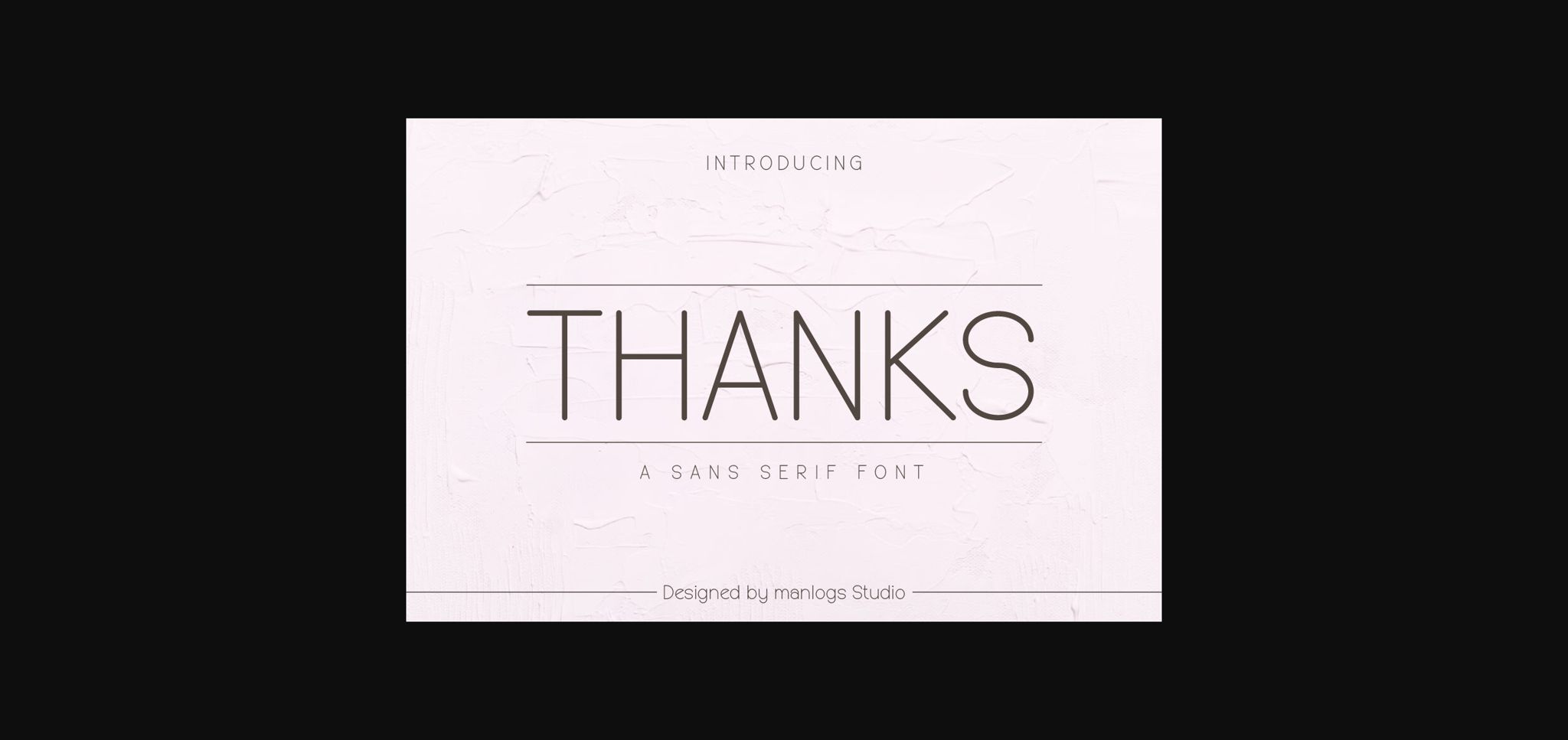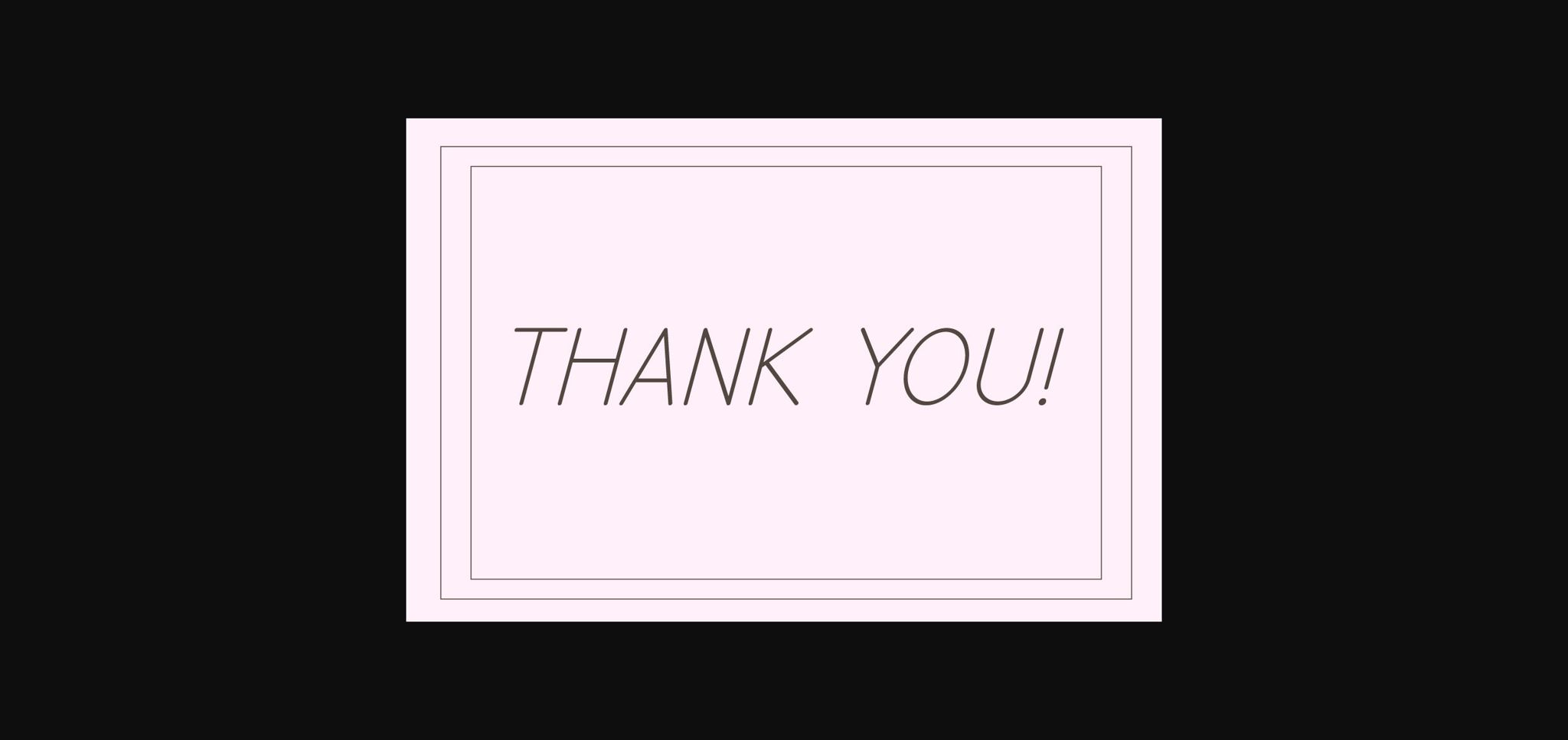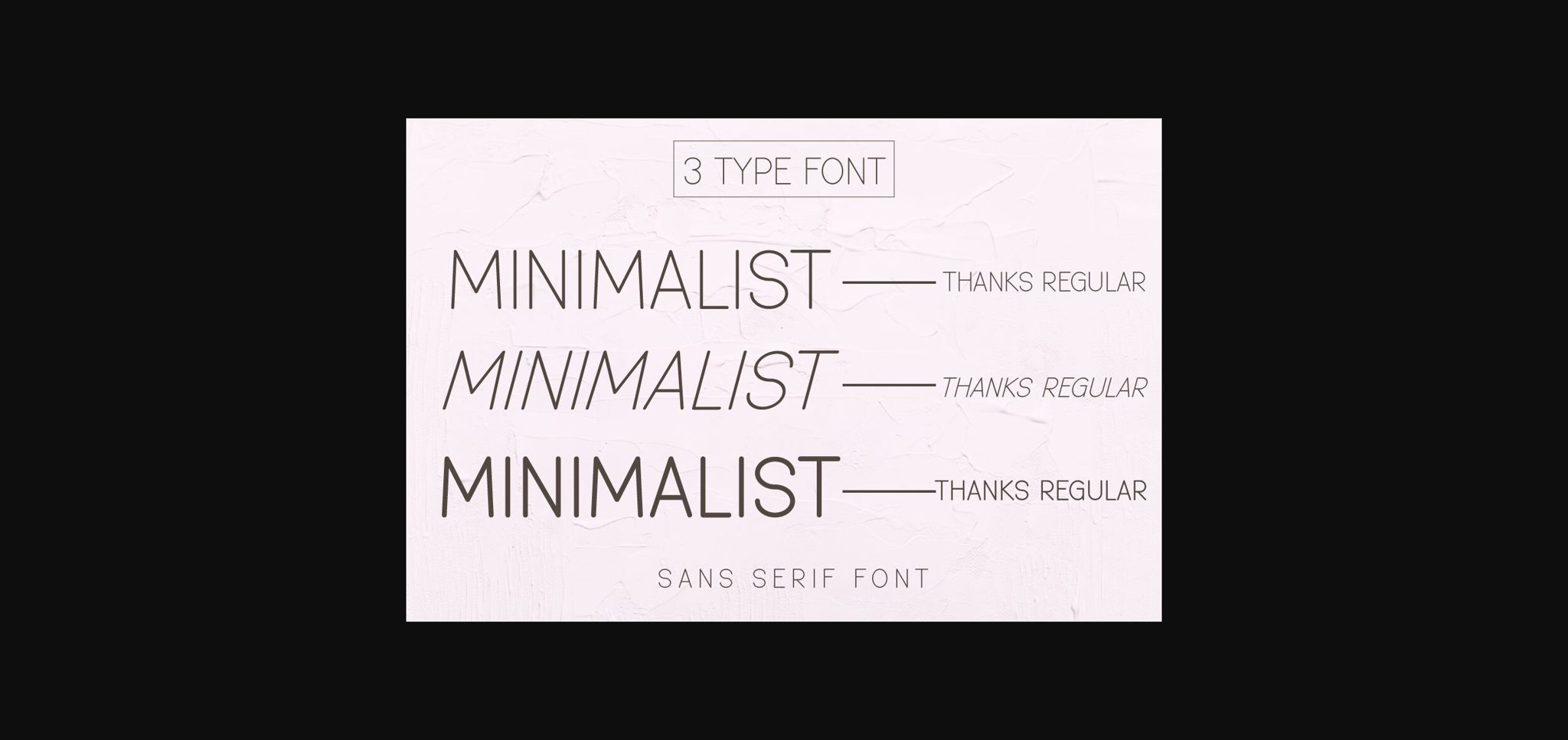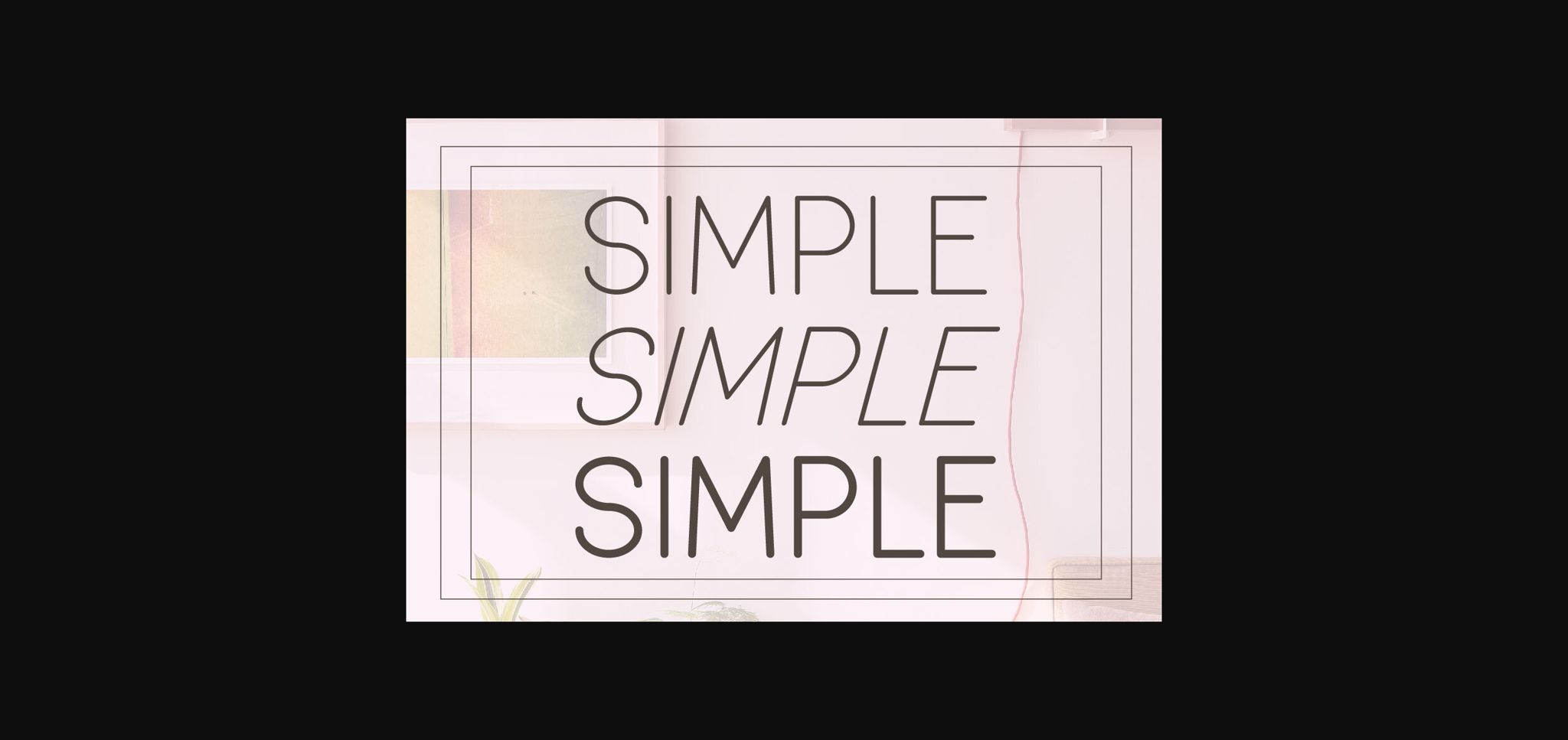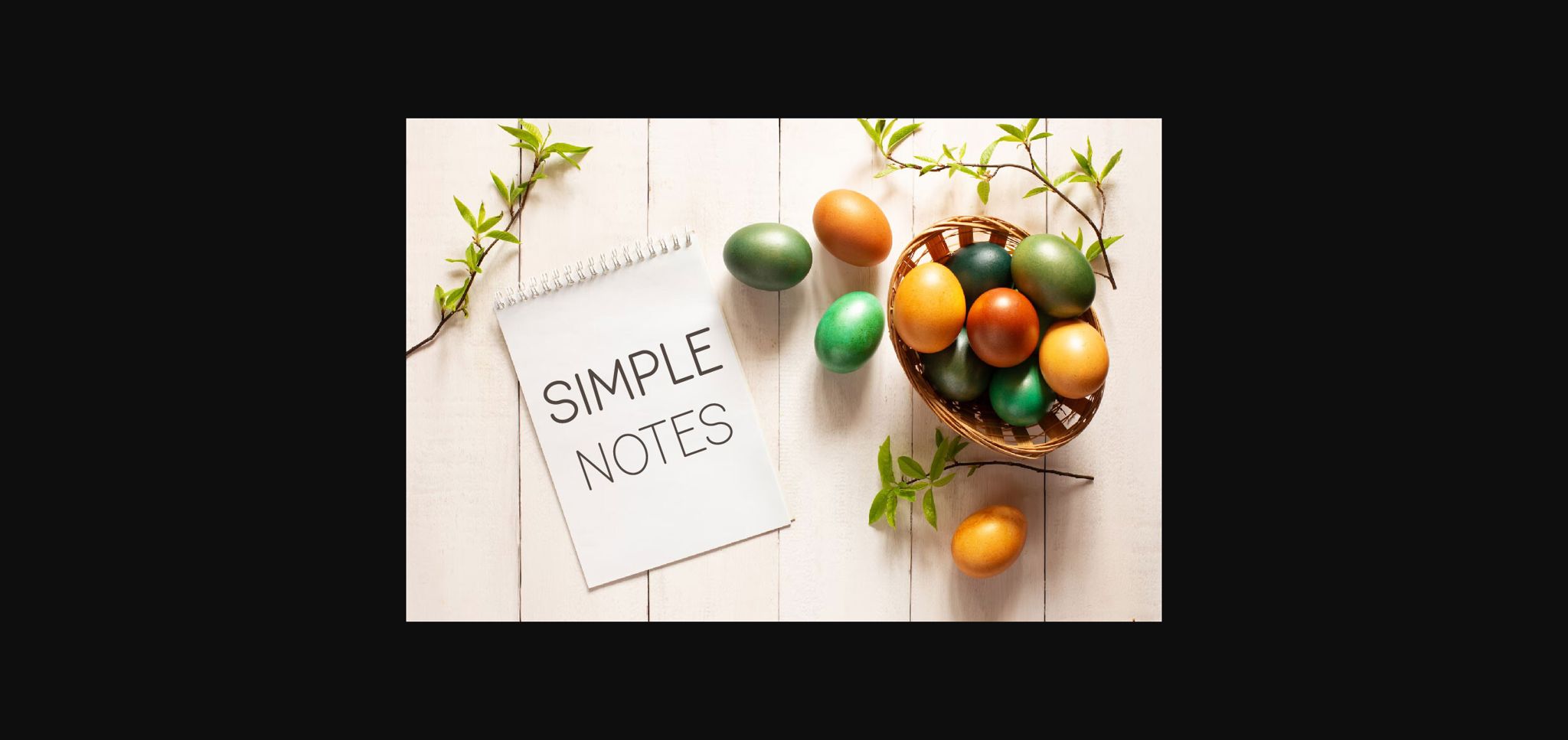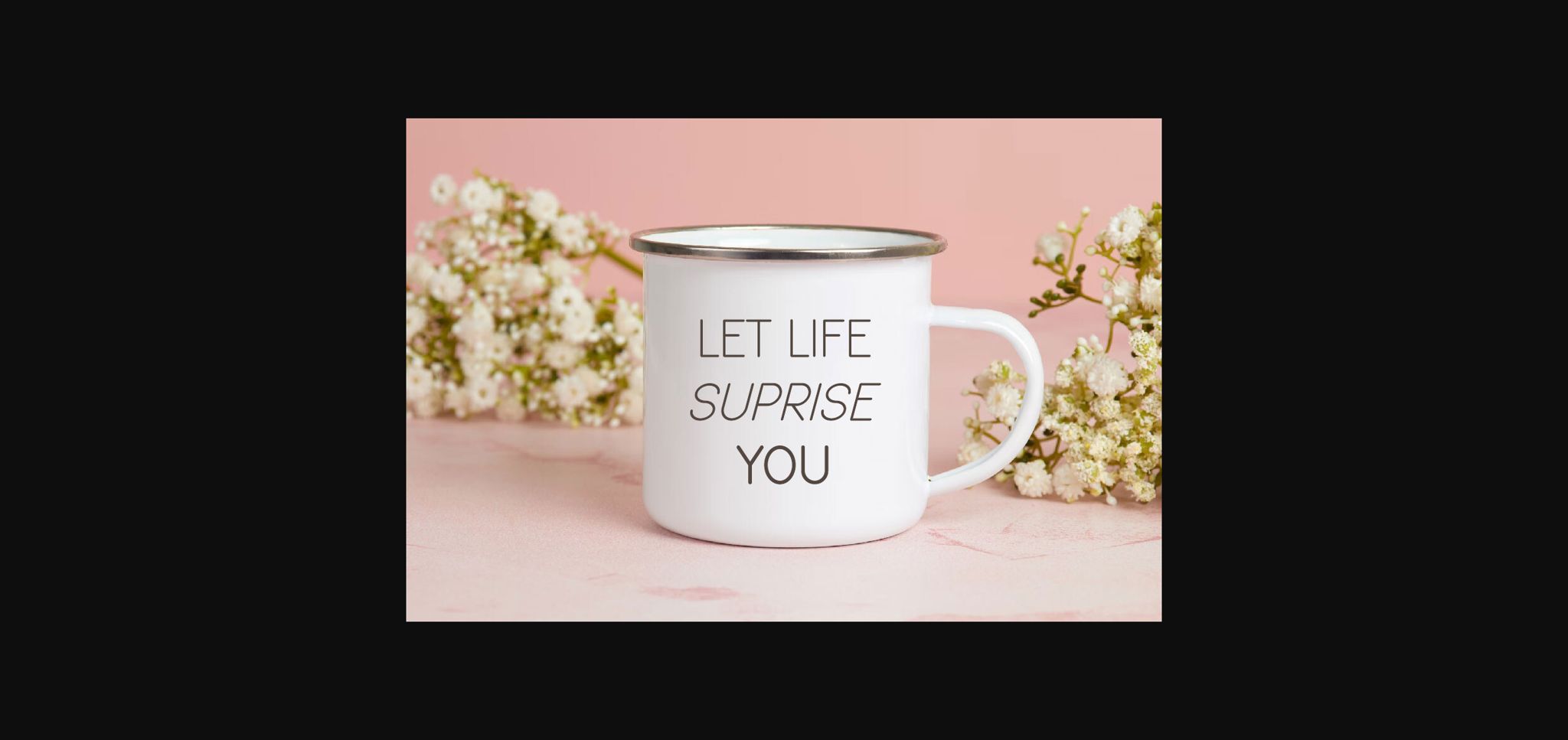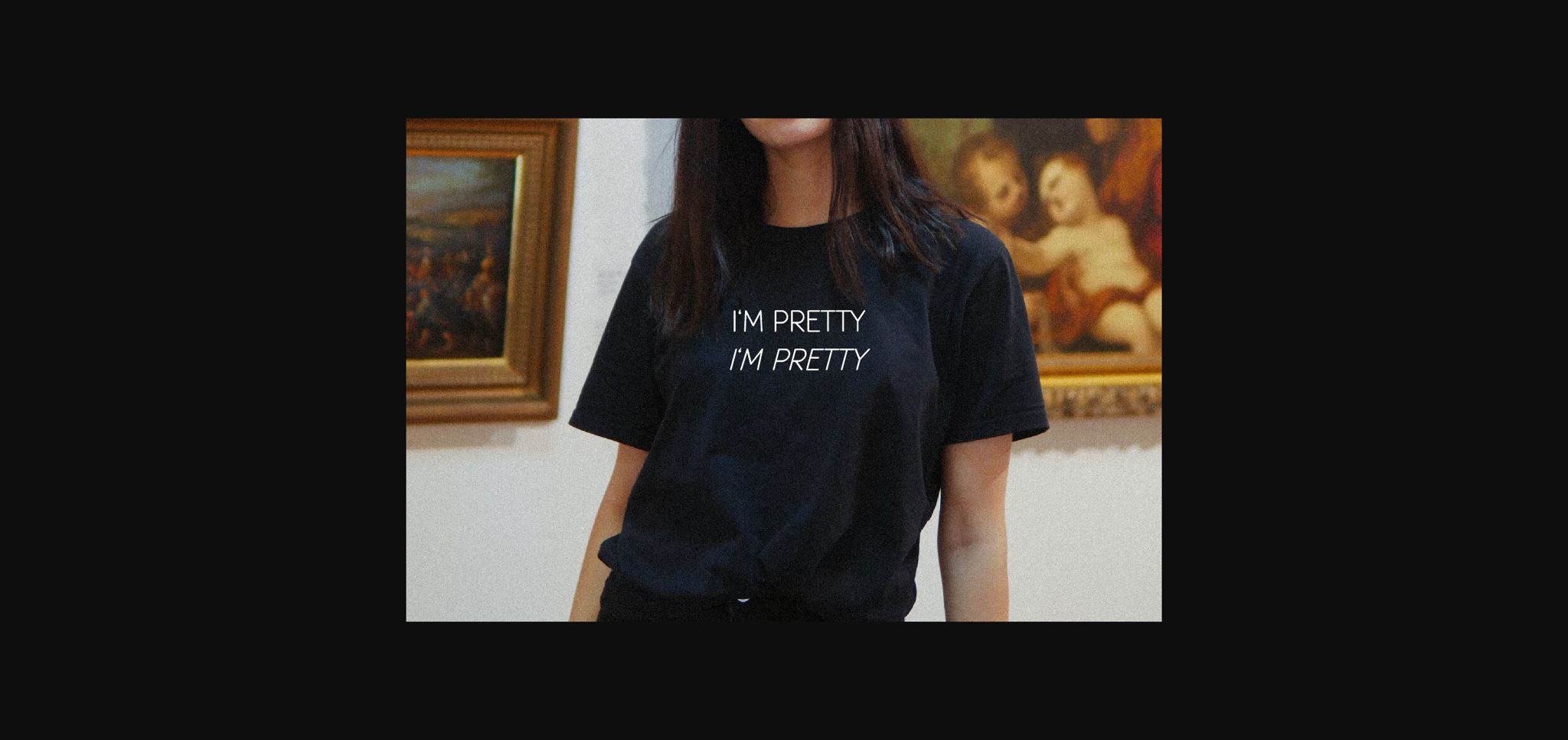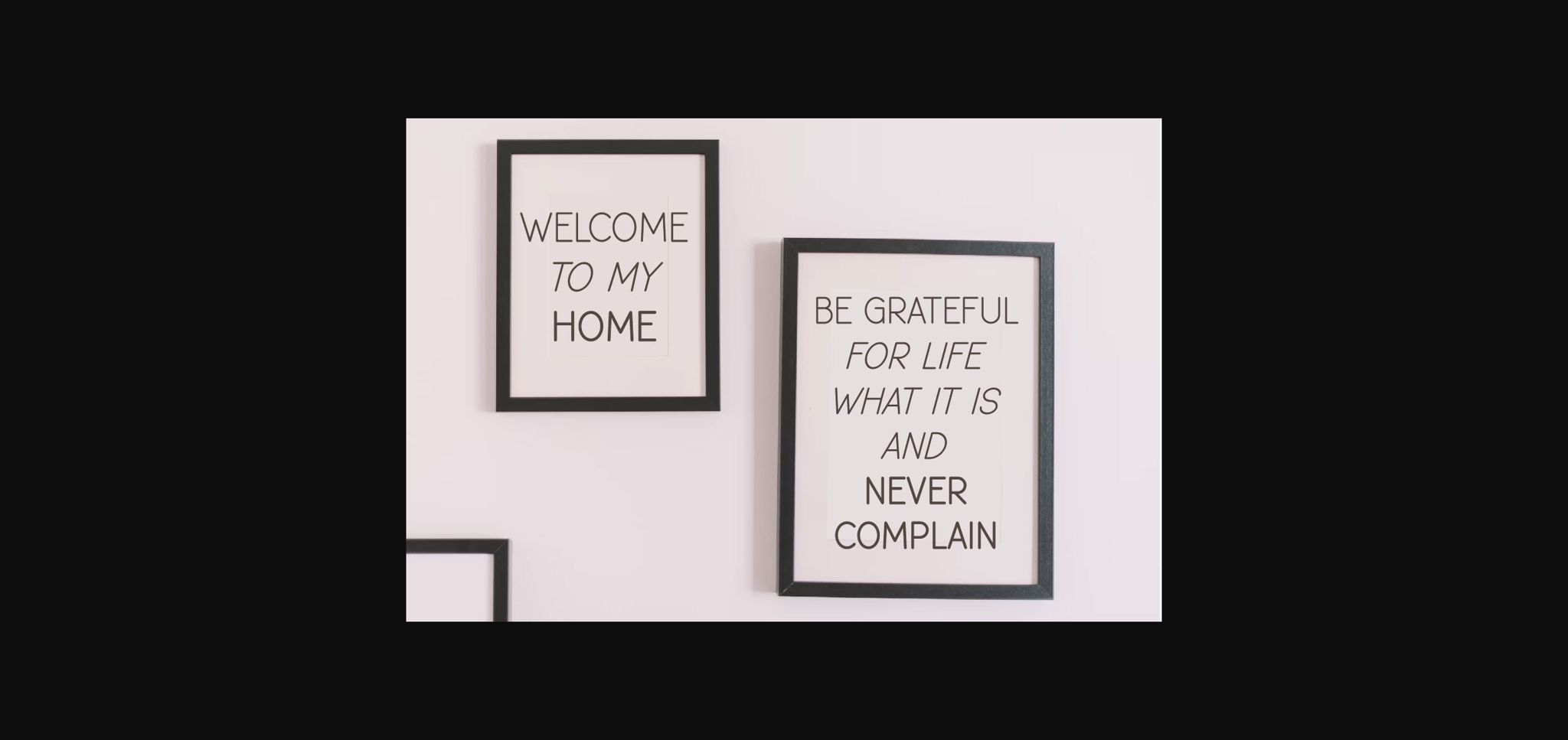
Thanks Font
About Thanks Font
Thanks is a simple and versatile sans serif font. Beautiful and sweet with (3 types of fonts), this font is suitable for craft designs, wedding invitations, cards, posters, quotes, gift labels, packaging, branding, and other designs that may require an aesthetic and personal touch!